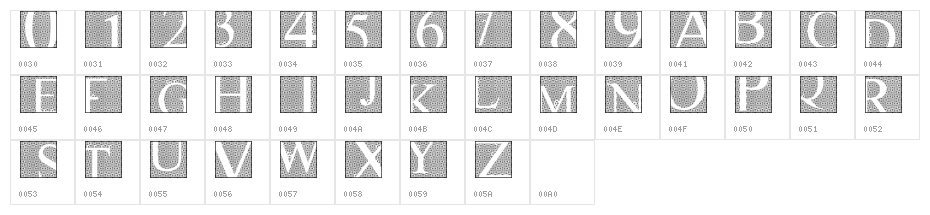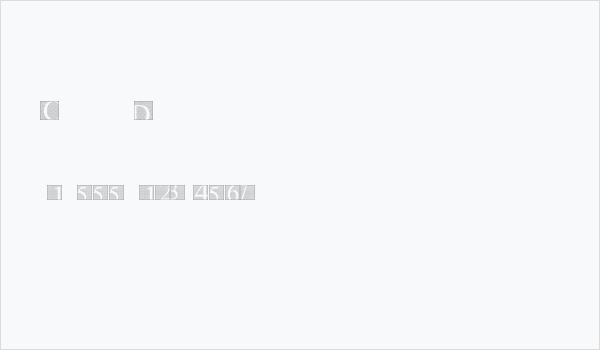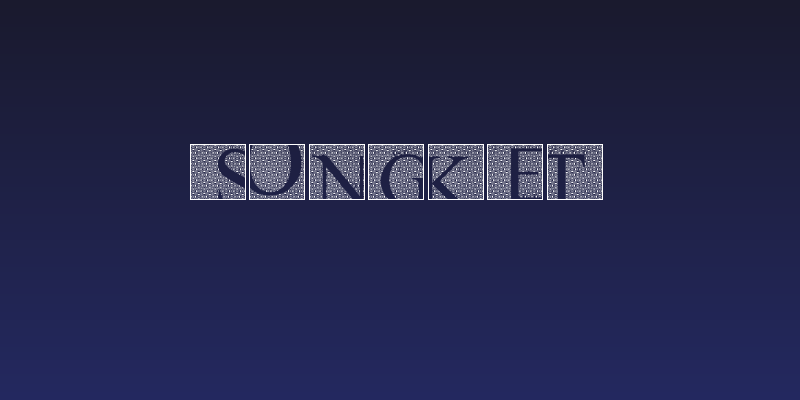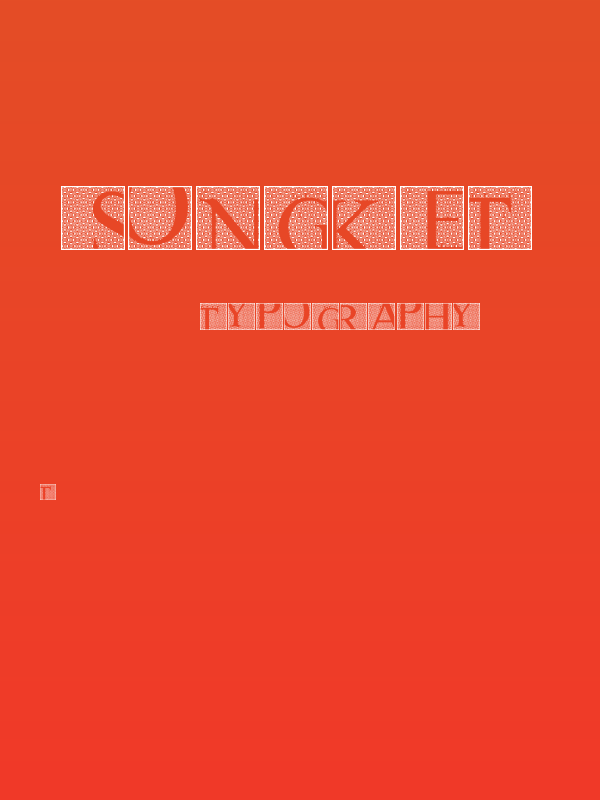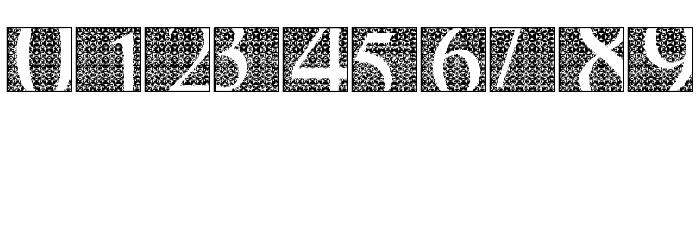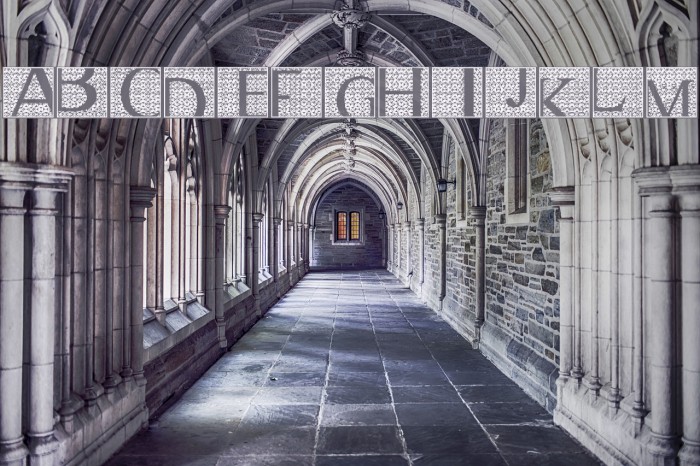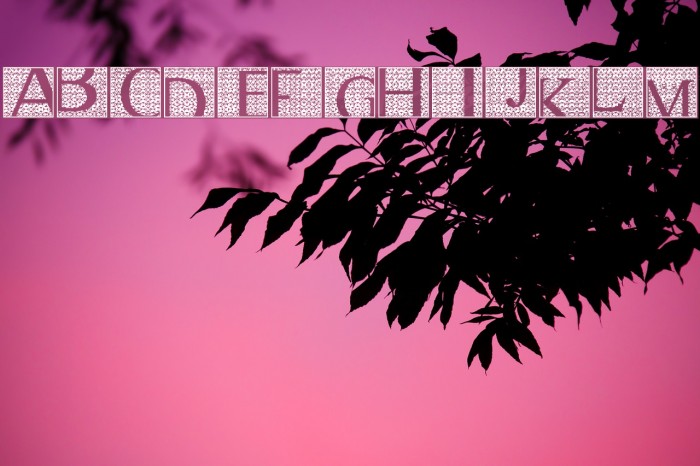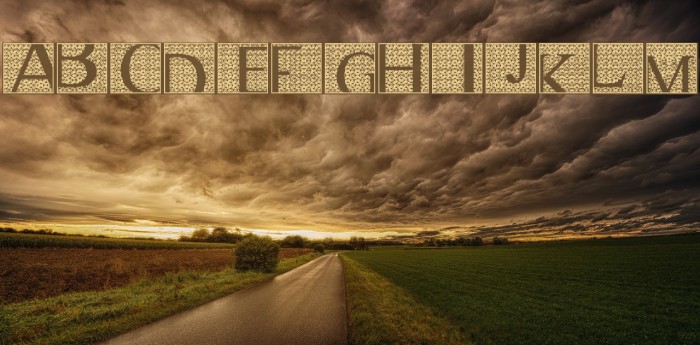
songket Font
songket Description
This font features a unique and intricate design with a textured, woven pattern reminiscent of traditional textile art. Each character is enclosed within a square, creating a uniform and structured appearance. The letters and numbers are bold and prominent, with a high contrast between the filled areas and the negative space, making them stand out distinctly. The overall style is decorative and artistic, suitable for projects that require a touch of cultural or artistic flair.
| Proposed Projects | Ideal for cultural event posters, artistic branding, textile-themed designs, and decorative headings. |